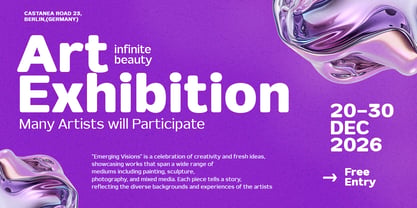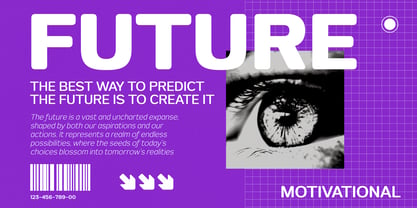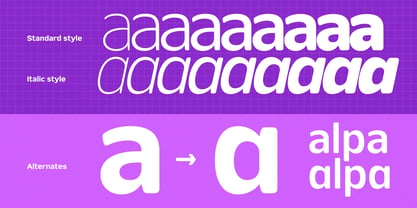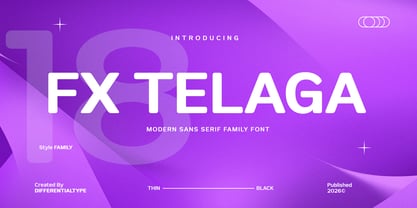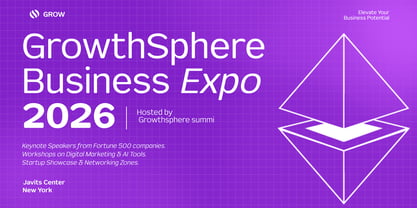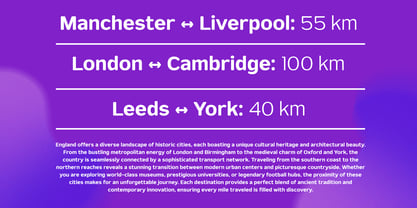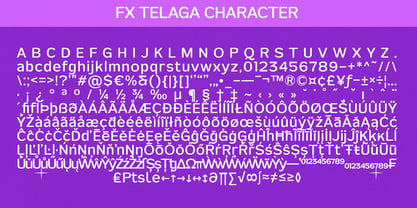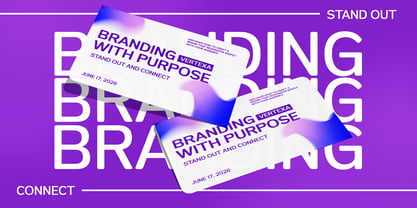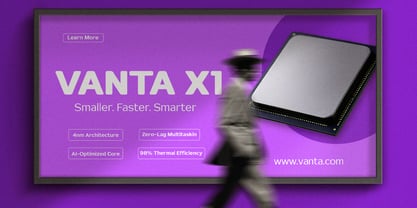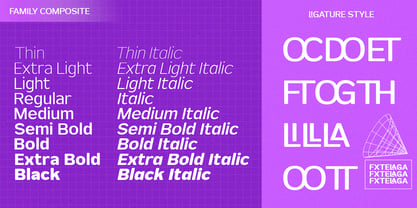
FX Telaga
by Differentialtype
The FX Telaga Font Family was designed by Sidik Sidik and published by Differentialtype. FX Telaga contains 18 styles and family package options. More about this family
FX Telaga is a modern sans-serif family that beautifully captures the balance between professional clarity and organic warmth. Featuring an extensive collection of 18 styles, ranging from the ethereal Thin to the commanding Black with matching Italics, this typeface is defined by its subtly rounded corners that evoke a soft, dynamic energy. Designed with a focus on harmony and flow, FX Telaga moves away from the rigidity of traditional sans-serifs, offering a friendly yet sophisticated aesthetic that feels approachable and human-centric. Engineered for ultimate versatility, FX Telaga excels as both a highly legible body font for long-form documents and a powerhouse for high-impact branding. Its smooth morphology makes it the perfect companion for sleek logo descriptions, vibrant posters, and contemporary product packaging. Whether you are crafting a clean corporate interface or a bold lifestyle brand, FX Telaga provides a seamless typographic experience that flows effortlessly across any medium, ensuring your message is delivered with both strength and grace.
Designers: Sidik Sidik
Current Foundry: Differentialtype